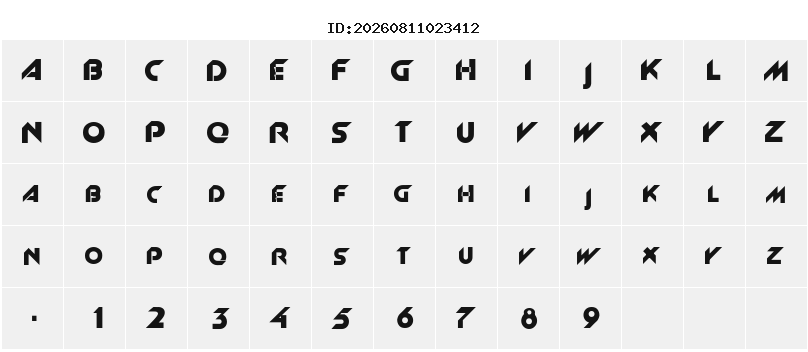
Rsnewgrrtt.ttf is a modern, elegant sans-serif font designed for ultimate readability and visual harmony. Perfect for branding, headlines, web design, and print materials.